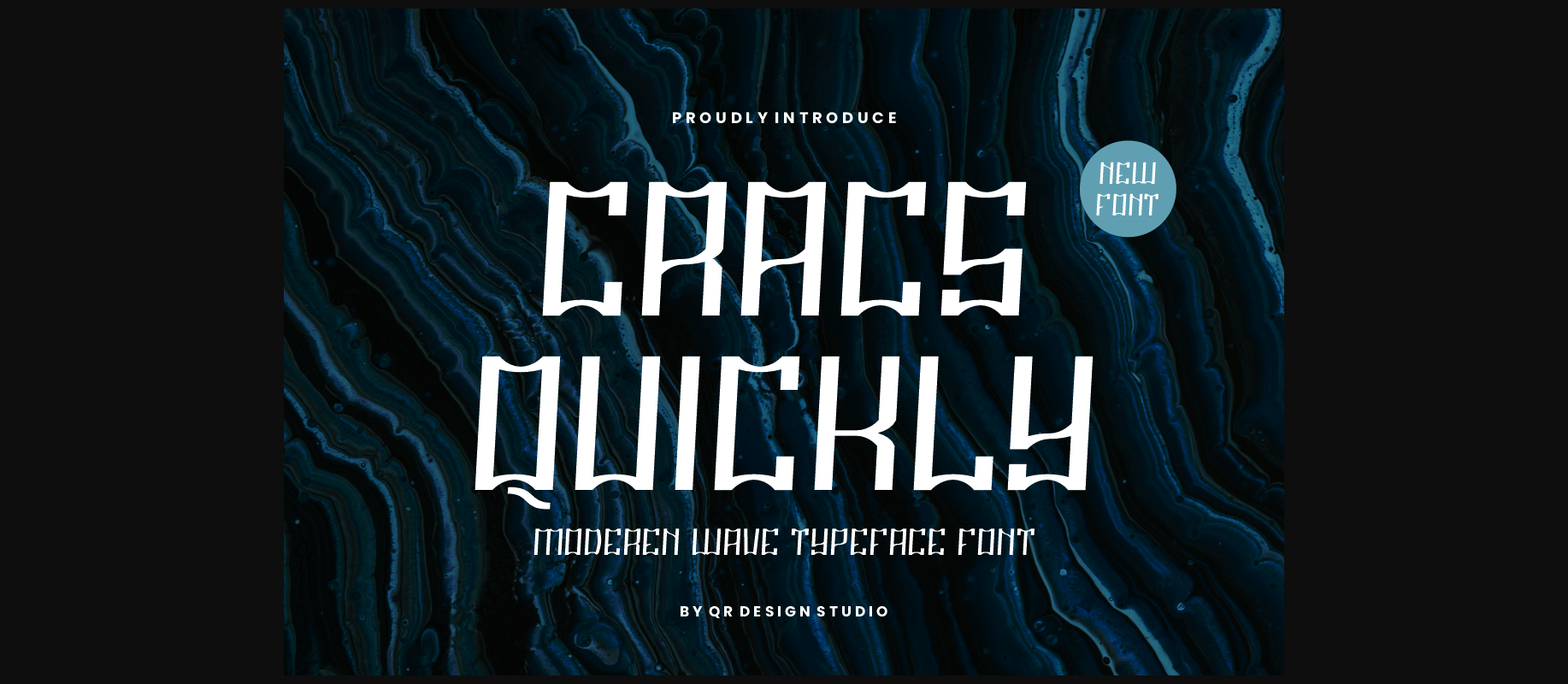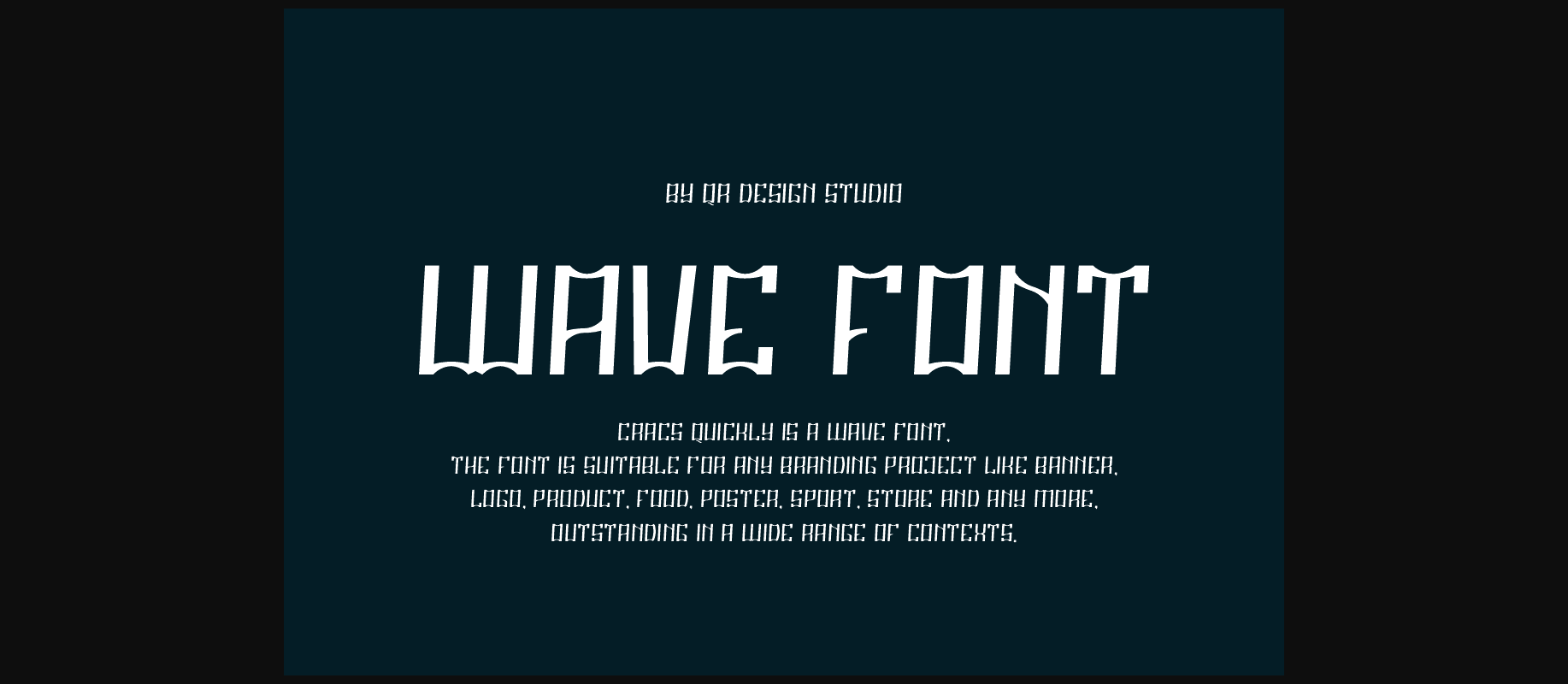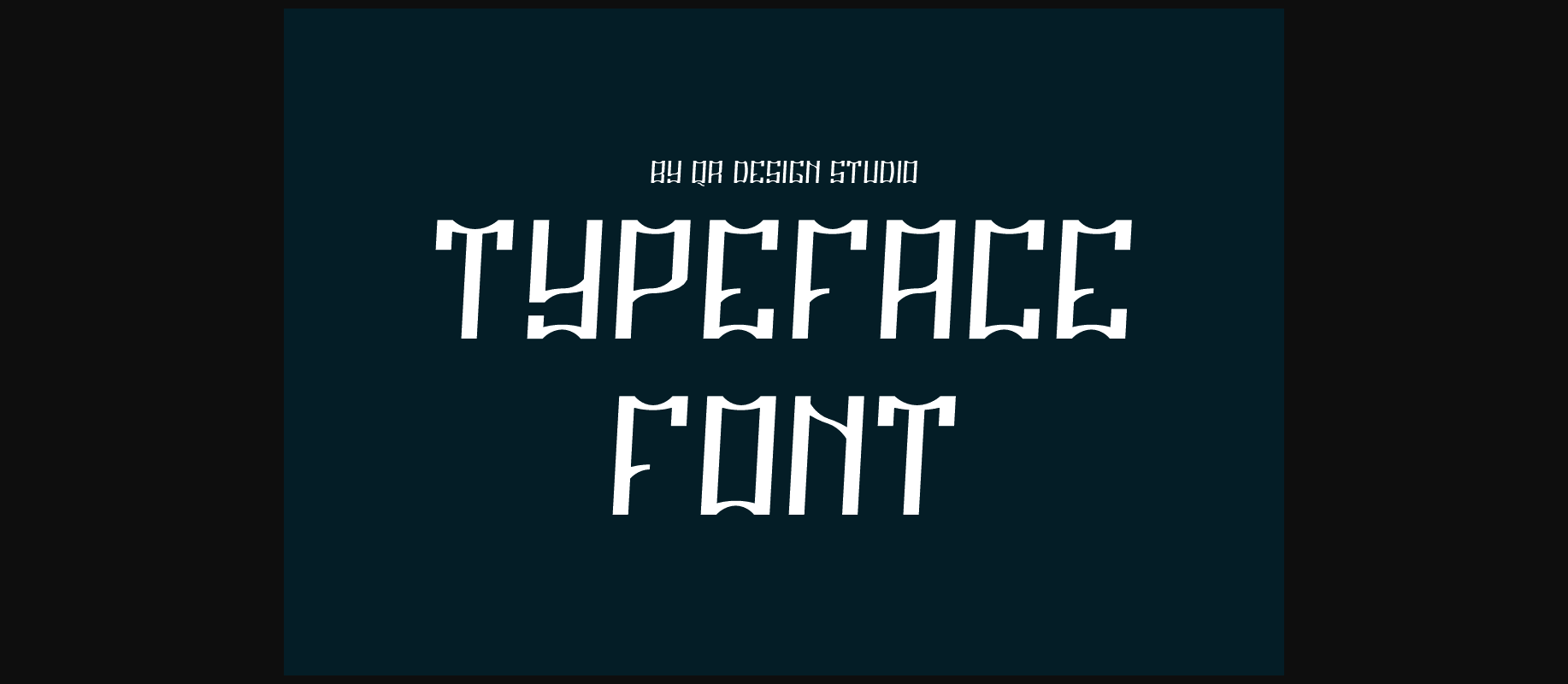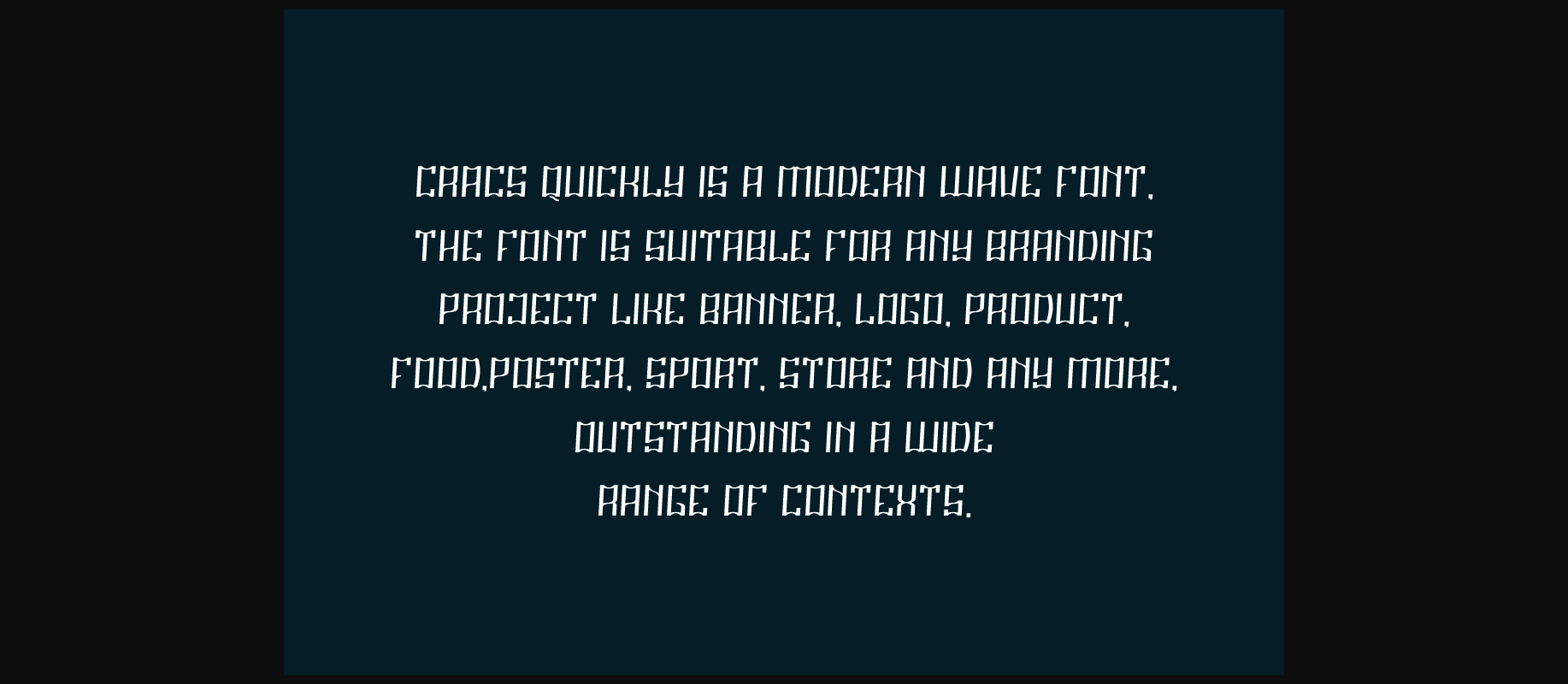
About Cracs Quickly Font
Cracs Quickl is an artdeco and authentic decorative font. It is suitable for any branding project like logo, sport, and many more.